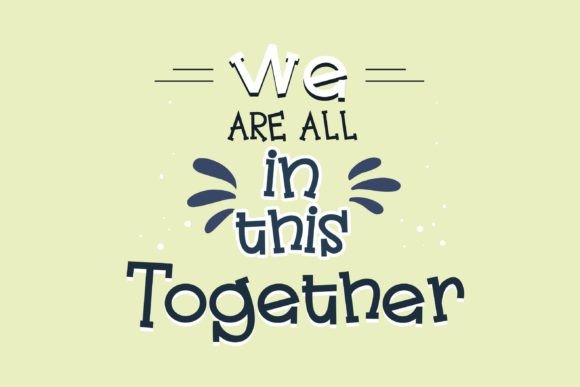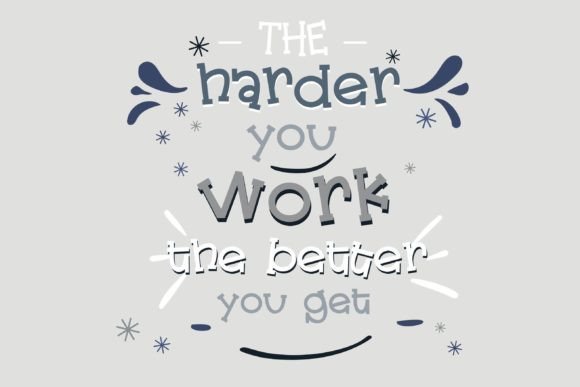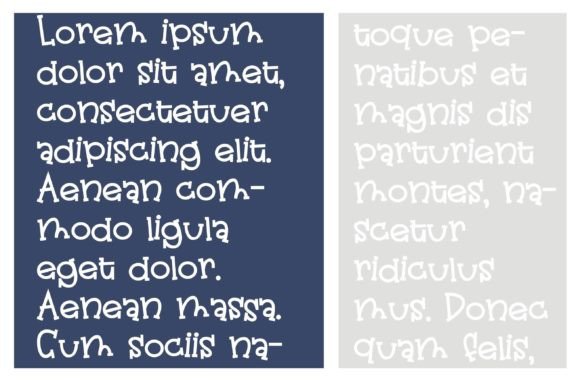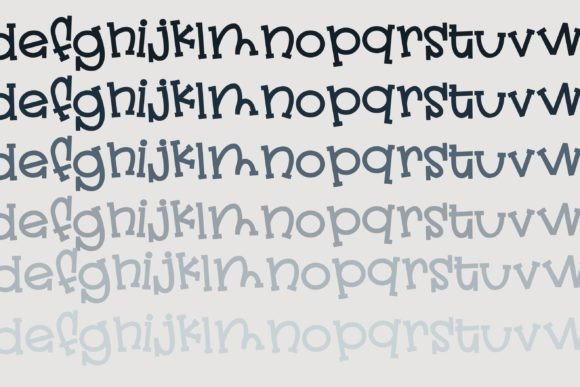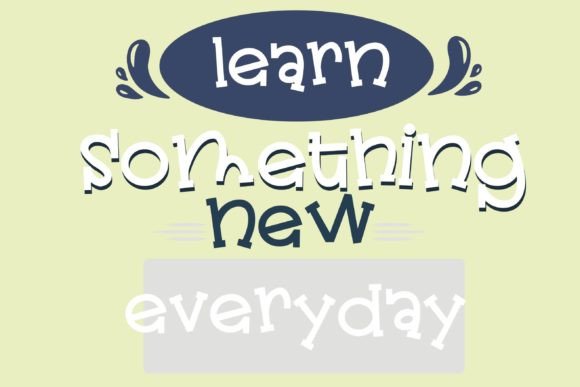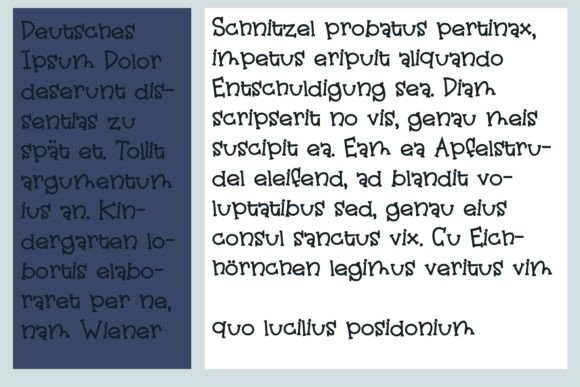
Cutesitoot Font: Add a Touch of Whimsy and Fun to Your Designs
Are you looking for a font that can add a dash of playfulness and charm to your designs? Look no further than Cutesitoot, a delightful handwritten serif font that exudes fun and quirkiness. With its charming and playful letterforms, Cutesitoot is perfect for designers and crafters who want to evoke a sense of innocence and joy in their work.
The Characteristics of Cutesitoot Font
Cutesitoot is a unique and eye-catching font that boasts a range of characteristics that make it perfect for a variety of design projects. Some of its key features include:
- Handwritten serif font: Cutesitoot has a personal and human touch, with a handwritten feel that makes it perfect for adding a friendly and inviting vibe to your designs.
- Charming and playful letterforms: The font’s letterforms are designed to evoke a sense of innocence and joy, making it perfect for projects that require a touch of whimsy and fun.
- Whimsical and elegant: Cutesitoot strikes the perfect balance between whimsy and elegance, making it suitable for a range of design projects, from greeting cards and invitations to branding and packaging.
Uses for Cutesitoot Font
Cutesitoot is a versatile font that can be used in a variety of design projects, including:
- Greeting cards: Add a touch of whimsy and fun to your greeting cards with Cutesitoot, perfect for birthdays, weddings, and other special occasions.
- Invitations: Make your invitations stand out with Cutesitoot, ideal for parties, baby showers, and other events.
- Branding projects: Use Cutesitoot to add a friendly and inviting vibe to your brand, perfect for businesses that want to appeal to a younger audience or convey a sense of fun and playfulness.
- Crafting and DIY projects: Cutesitoot is also perfect for crafters and DIY enthusiasts who want to add a personal touch to their projects, such as scrapbooking, journaling, and paper crafting.
Why Choose Cutesitoot Font?
So why choose Cutesitoot font for your next design project? Here are just a few reasons:
- Unique and eye-catching: Cutesitoot is a one-of-a-kind font that will make your designs stand out from the crowd.
- Easy to read: Despite its playful and whimsical nature, Cutesitoot is easy to read and understand, making it perfect for body text and headlines.
- Versatile: Cutesitoot can be used in a range of design projects, from digital designs to print materials.
- Fun and engaging: Cutesitoot is a font that will bring a smile to your audience’s face, making it perfect for projects that require a touch of personality and whimsy.
Tips for Using Cutesitoot Font
Here are a few tips for getting the most out of Cutesitoot font:
- Use it sparingly: While Cutesitoot is a fun and playful font, it can be overwhelming if used excessively. Use it sparingly to add a touch of whimsy to your designs.
- Pair it with other fonts: Cutesitoot pairs well with other fonts, such as sans-serif fonts and script fonts. Experiment with different pairings to find the perfect combination for your design.
- Experiment with colors: Cutesitoot looks great in a range of colors, from bright and bold to pastel and soft. Experiment with different colors to find the perfect fit for your design.
Cutesitoot font is a delightful handwritten serif font that exudes fun and quirkiness. With its charming and playful letterforms, Cutesitoot is perfect for designers and crafters who want to add a touch of whimsy and fun to their designs. Whether you’re working on a greeting card, invitation, or branding project, Cutesitoot is sure to bring a smile to your audience’s face. So why not give Cutesitoot a try and see how it can elevate your designs?